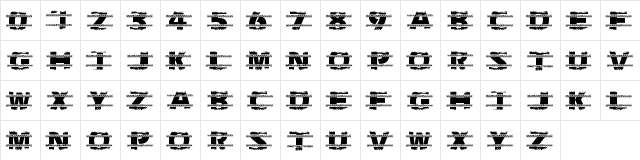
Trackers Regular Font Preview
Trackers Regular
Design Context for Trackers Typeface
Trackers is a composed and adaptable typeface that performs quietly and consistently across a wide range of design contexts.
Pro Tip: Use Trackers in both headline and body roles to test its range before committing to a single application.